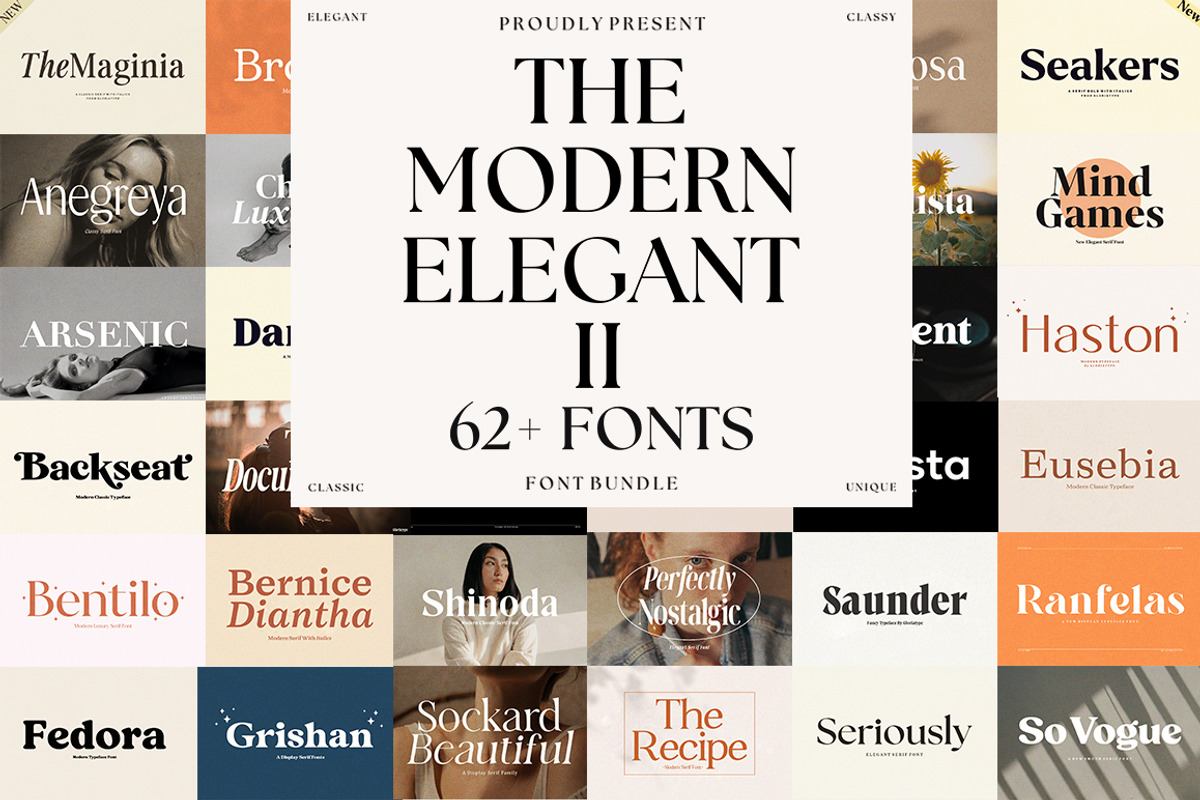
You must purchase this font for commercial use. However, you can download The Modern Elegant Font Bundle 2 Free Download for testing purposes. The Modern Elegant Font Bundle 2 is a collection of sophisticated, stylish fonts designed to bring a contemporary and luxurious feel to your projects. This bundle includes a variety of fonts, from sleek sans-serifs to elegant scripts, perfect for logos, branding, wedding invitations, social media graphics, and more.
The fonts in The Modern Elegant Font Bundle 2 offer versatility, providing you with options for both clean, minimal designs and more artistic, calligraphy-inspired typography. Whether you're designing for a high-end brand, creating a chic event invitation, or working on a professional marketing campaign, this bundle has a font that suits your creative needs.